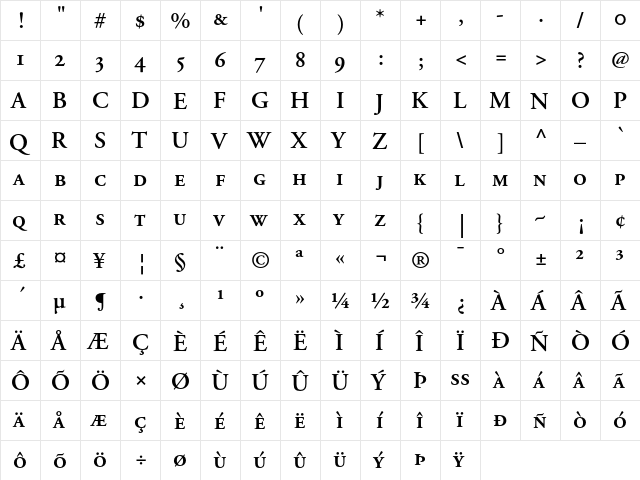
Adobe Garamond Semibold Small Caps & Oldstyle Figures Font Preview
Adobe Garamond Semibold Small Caps & Oldstyle Figures
Adobe Garamond Semibold Small Caps & Oldstyle Figures Font Details
| Style | Semibold Small Caps & Oldstyle Figures |
Design Context for Adobe Garamond Typeface
Adobe Garamond brings classic typographic sensibility to the table — its serifs and measured letterforms reflect centuries of print heritage. The heavy weight commands attention and anchors typographic hierarchies.
Pro Tip: Set Adobe Garamond with slightly loose tracking in headlines to let each letterform's detail read clearly at display sizes.